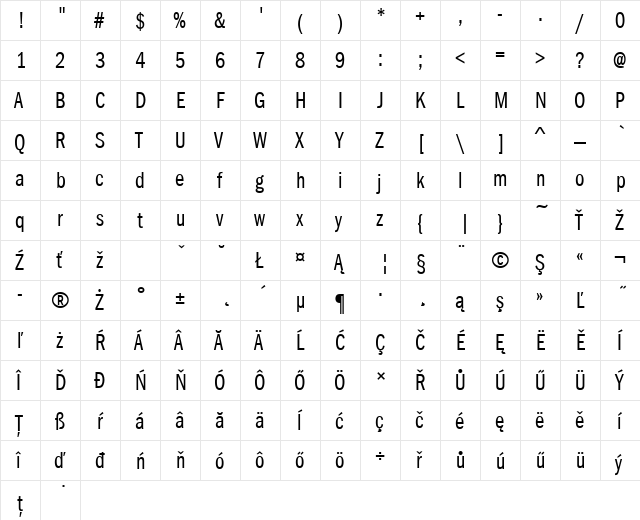
FranklinGotItcTEEBooCom Regular Font Preview
FranklinGotItcTEEBooCom Regular
Design Context for FranklinGotItcTEEBooCom Typeface
FranklinGotItcTEEBooCom is a composed and adaptable typeface that performs quietly and consistently across a wide range of design contexts.